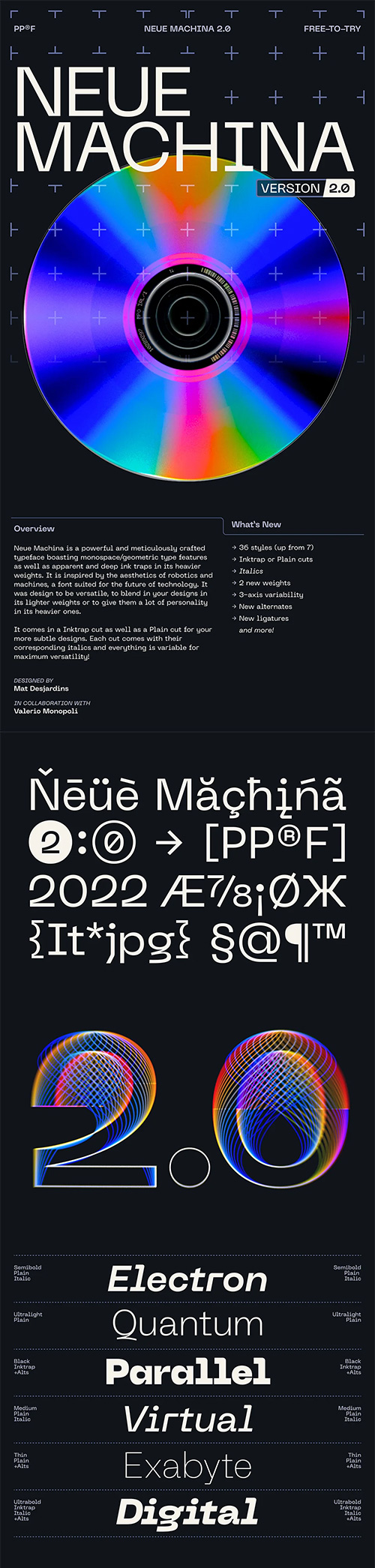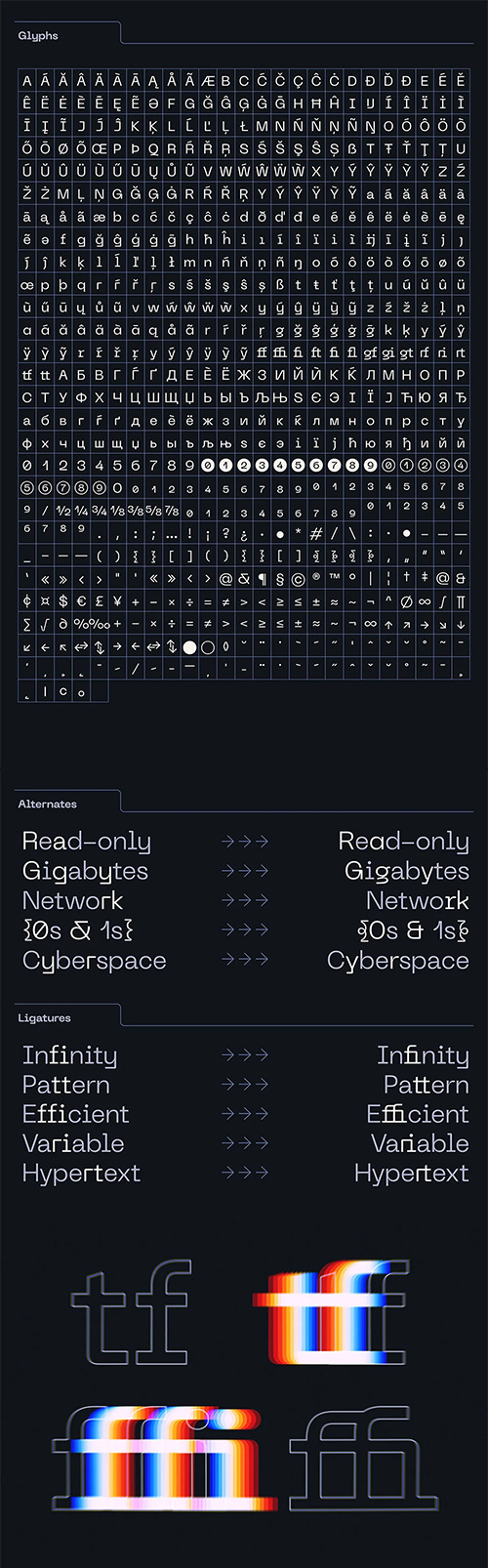
Neue Machina Font Family
- Neue Machina is a powerful and meticulously crafted typeface boasting monospace/geometric type features as well as apparent and deep ink traps in its heavier weights. It is inspired by the aesthetics of robotics and machines — a font suited for the future of technology. It was design to be versatile, to blend in your designs in its lighter weights or to give them a lot of personality in its heavier ones. 7 weights with 544 glyphs each combined with Stylistic Alternates, ligatures and more. Language support for the Americas, most of Europe & Cyrillic languages.